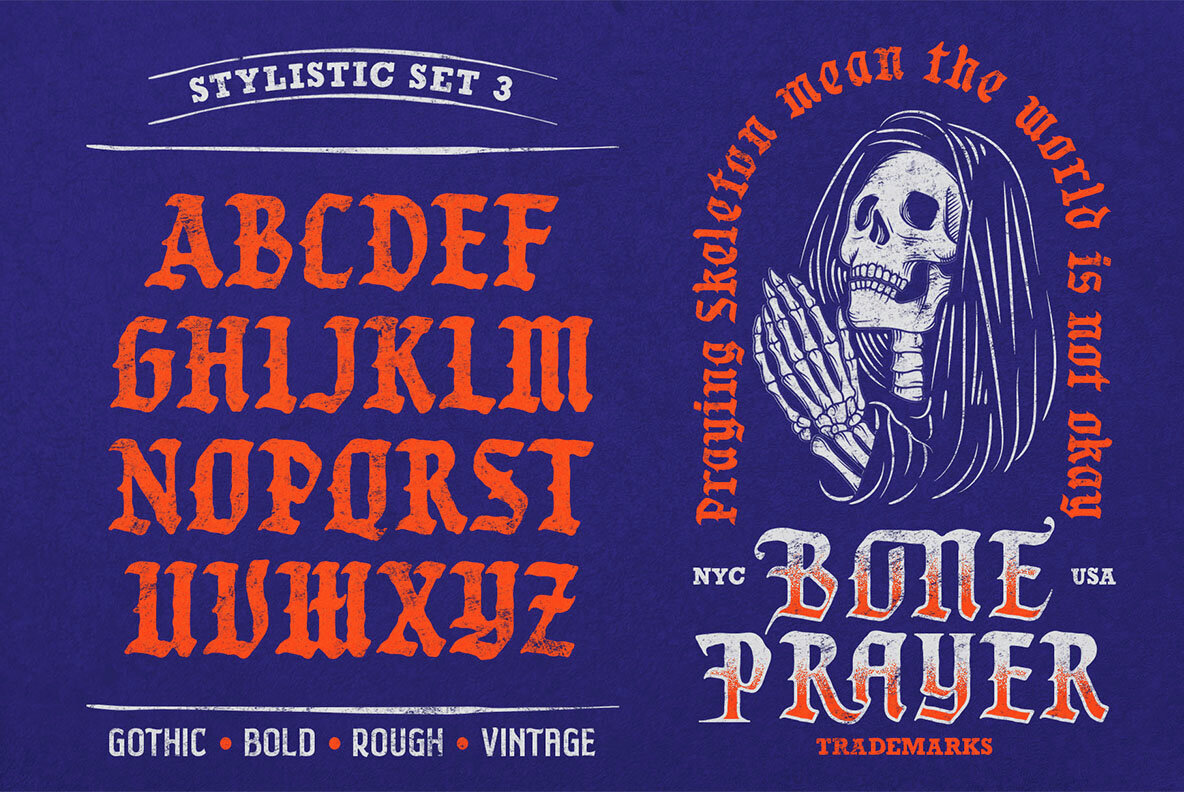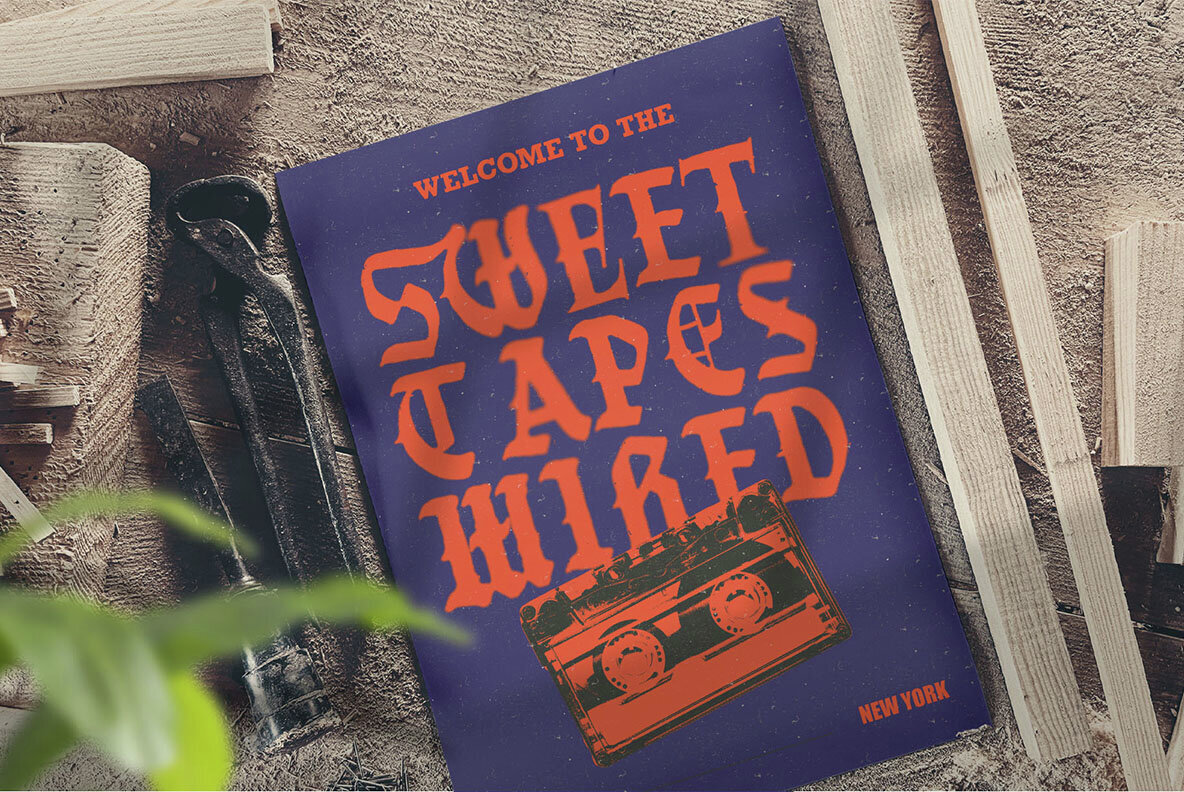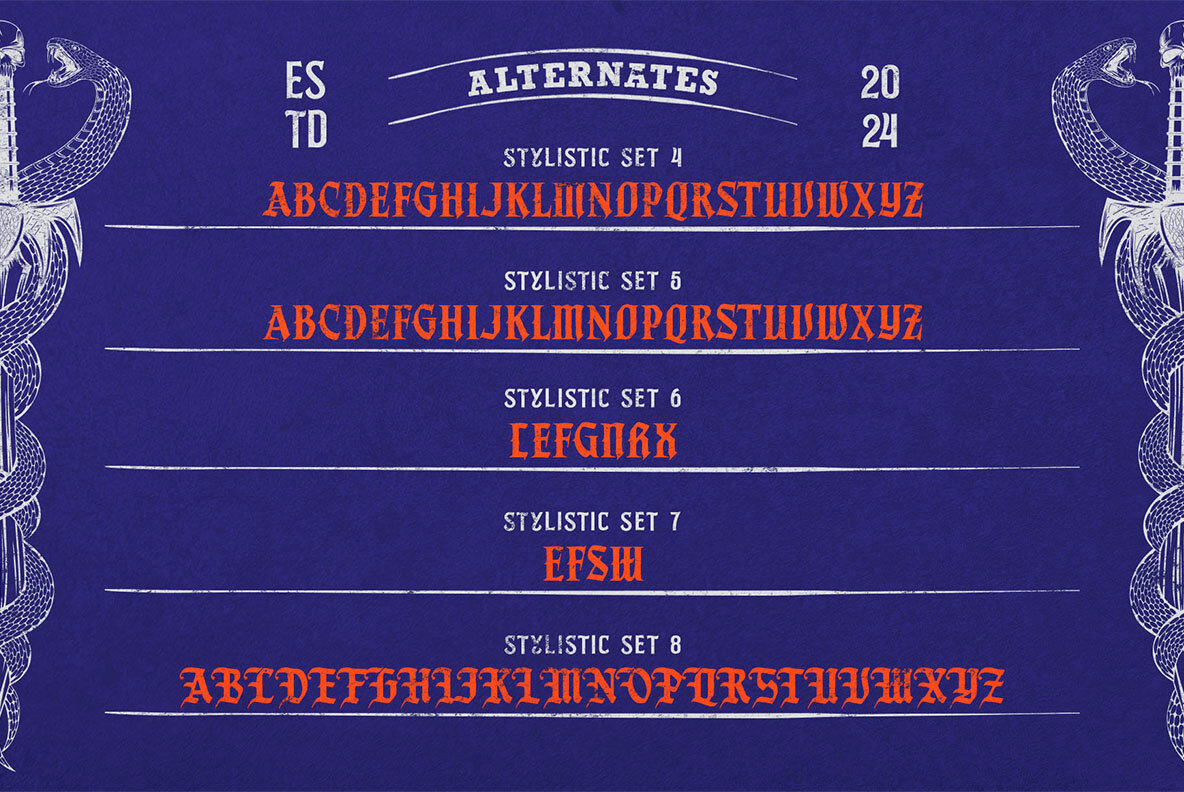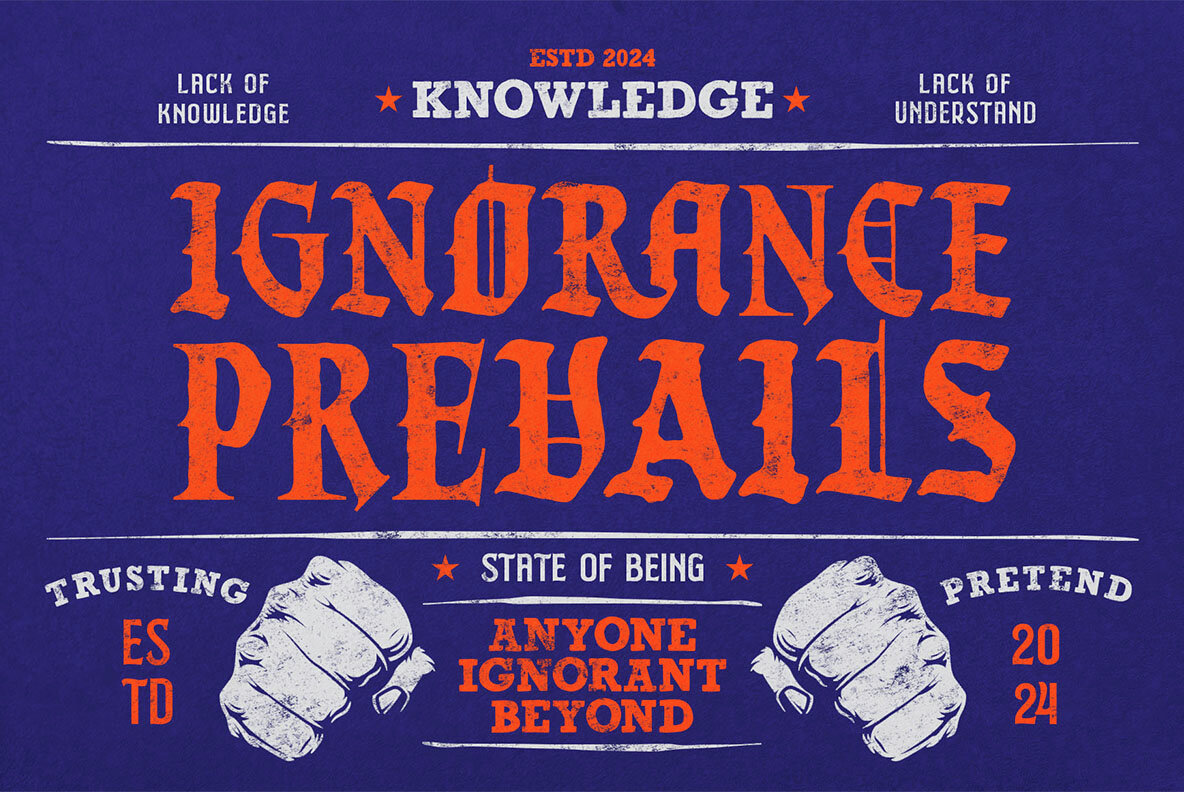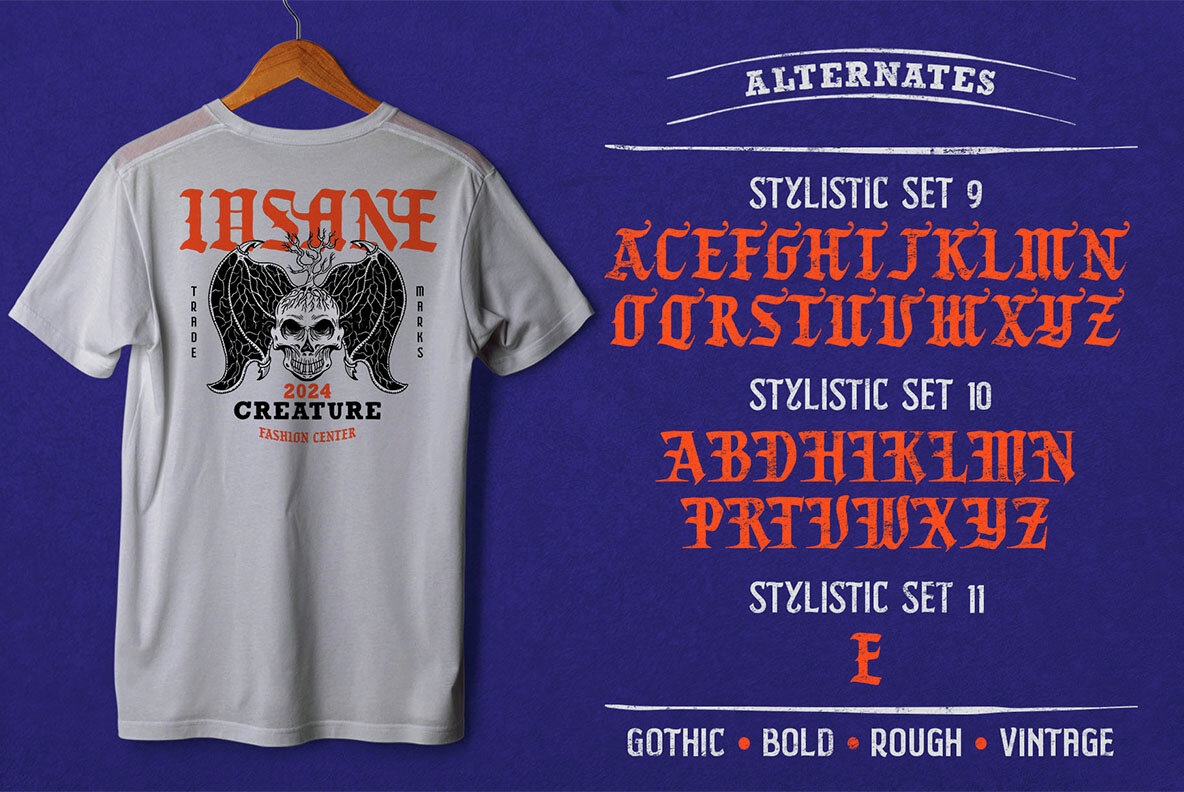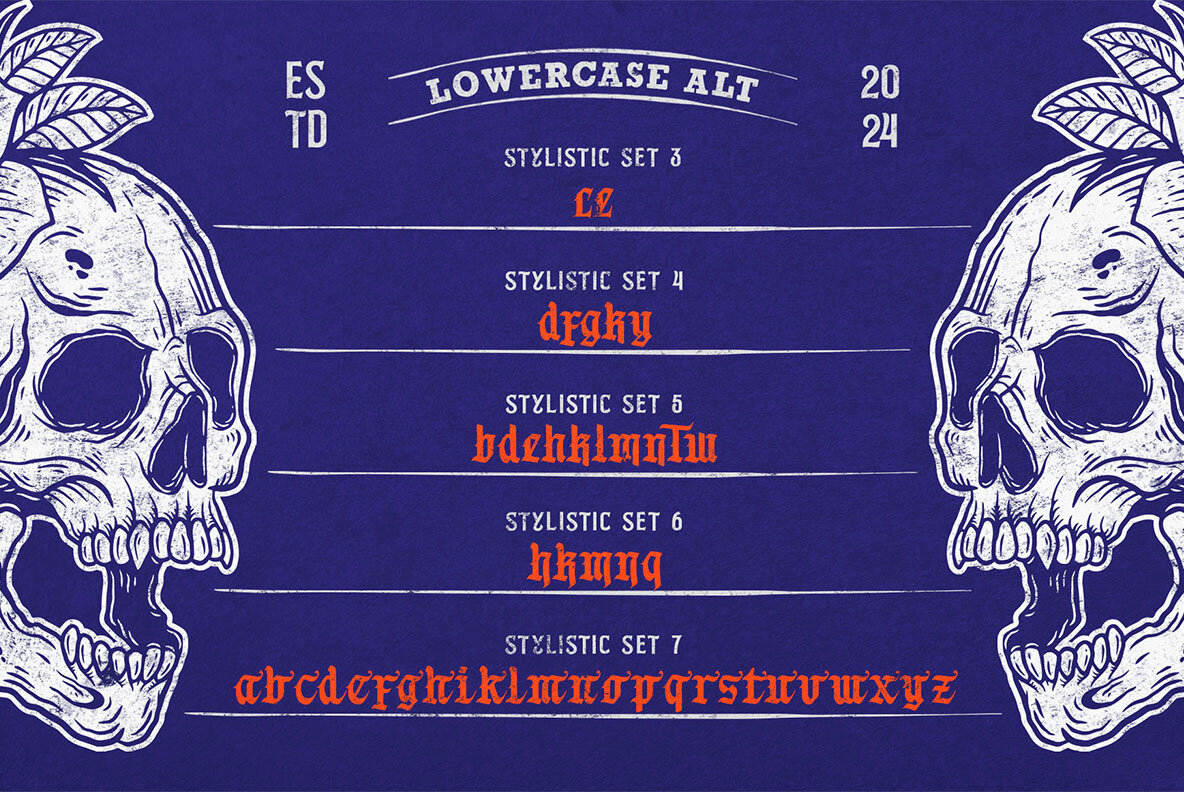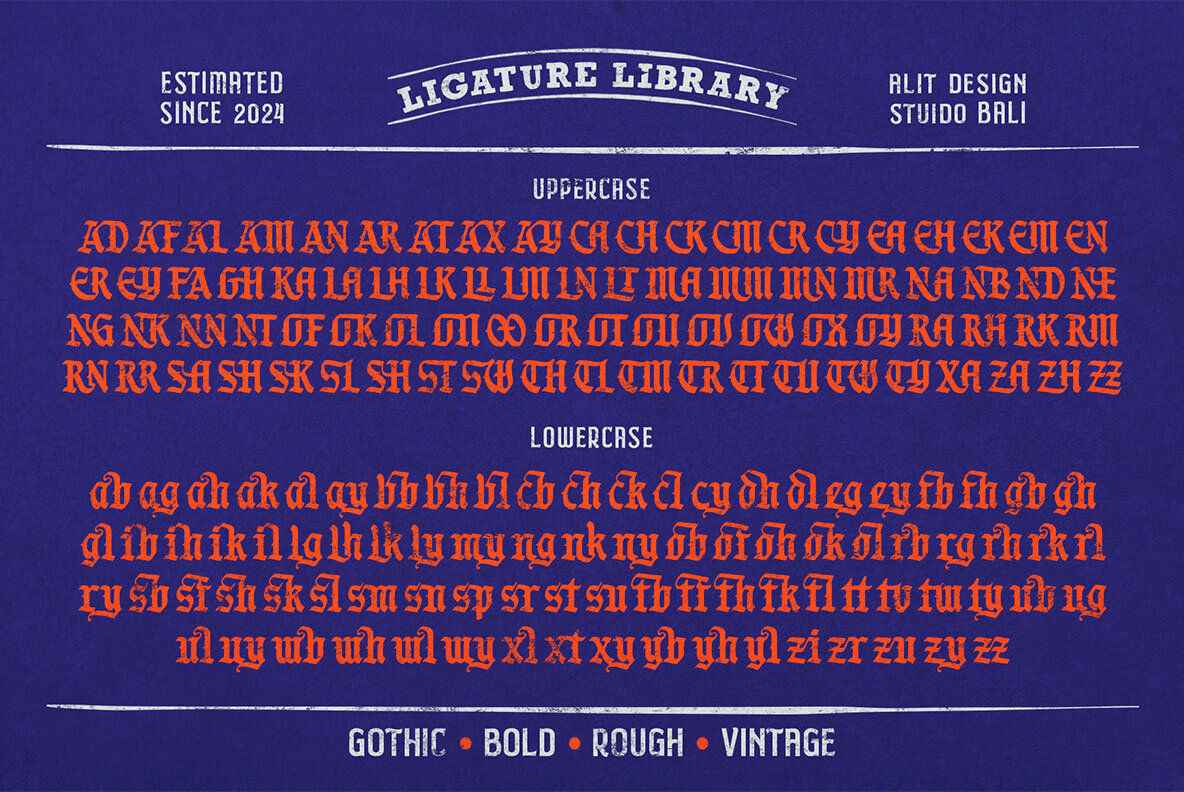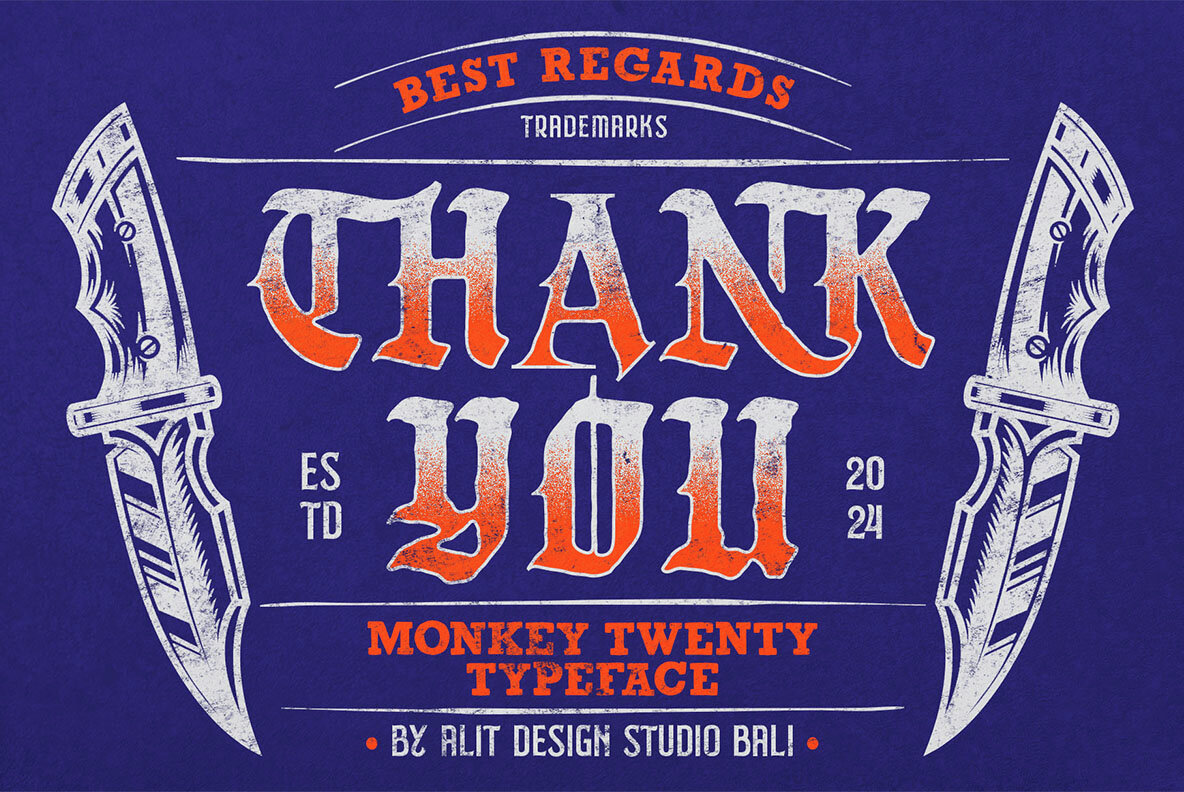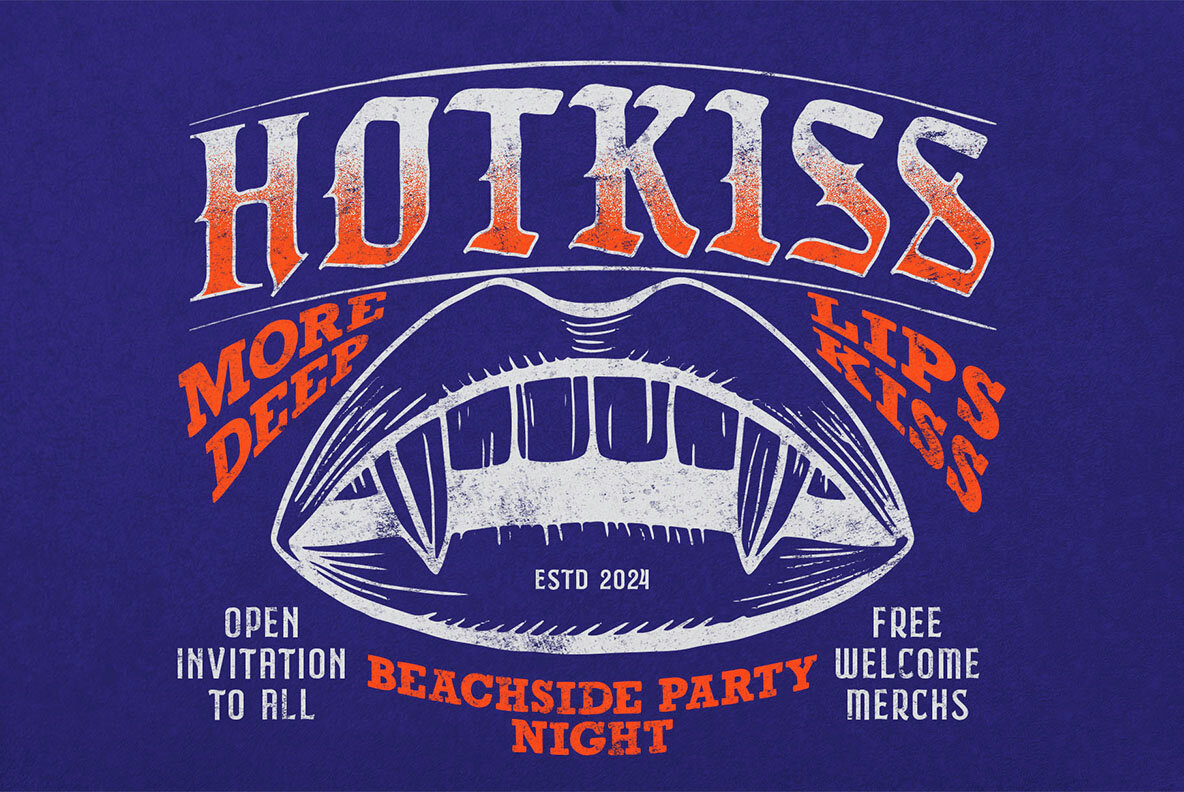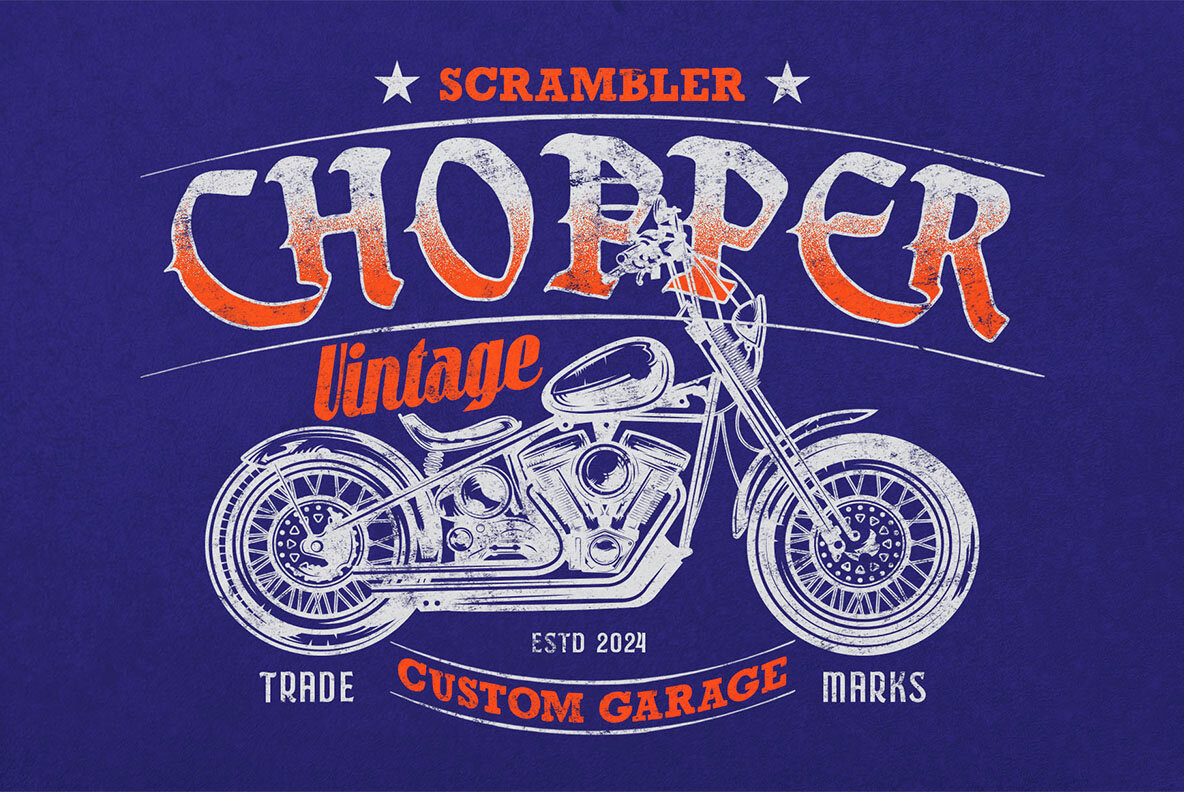
Monkeys Twenty Font
Monkeys Twenty Regular
"Monkeys Twenty Blackletter Font" masterfully blends the traditional elegance of Blackletter with the bold, rugged strength of a Serif typeface. Featuring a distinctive, rough, stamp-like texture, this font delivers a vintage, hand-crafted feel. The combination of old-world charm with a contemporary edge makes it ideal for projects requiring a bold yet sophisticated statement.
Key Features:
- 912 Glyphs: A comprehensive set of characters provides a vast range of typographic possibilities.
- Multilingual Support: Versatile support for multiple languages ensures global reach.
- Ligatures: Enhances the visual flow with special character combinations.
- Alternates: Offers creative flexibility with additional character variations.
Perfect for branding, packaging, posters, or editorial design, "Monkeys Twenty Blackletter Font" lends a bold, rough, and classic aesthetic to any project.